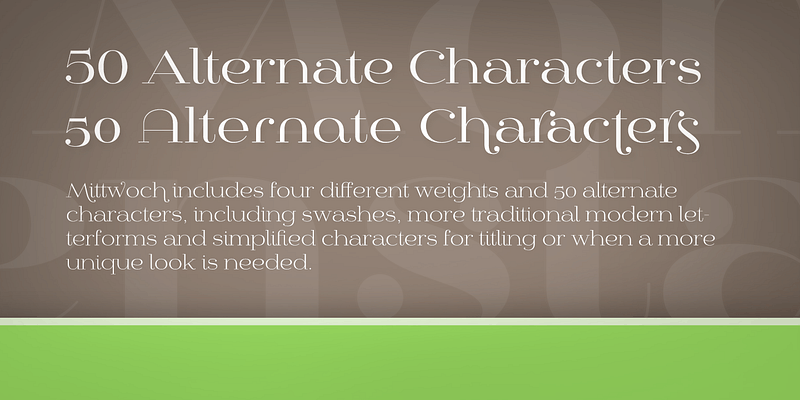
Mittwoch specimen
Mittwoch
Mittwoch is an extended modern serif from insigne. It's a new companion to insigne's Montag and Dienstag extended sans serifs.